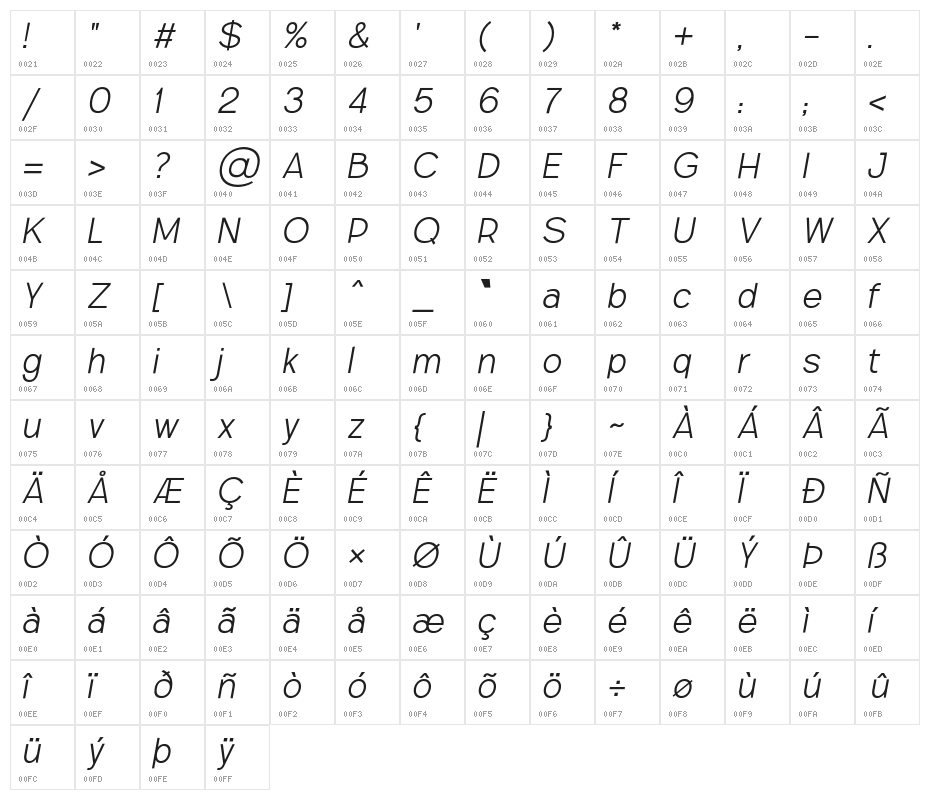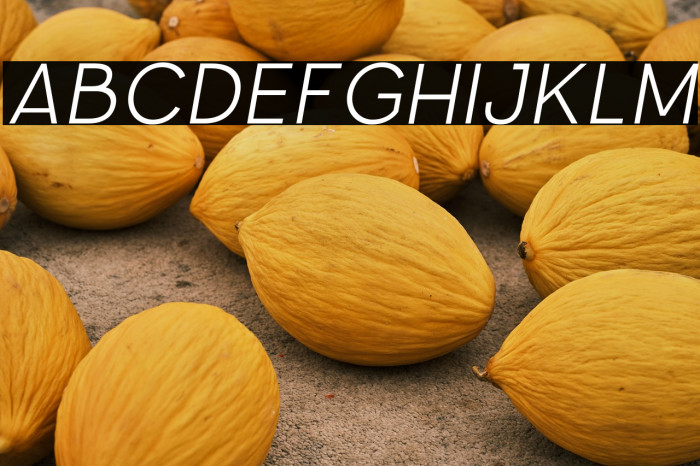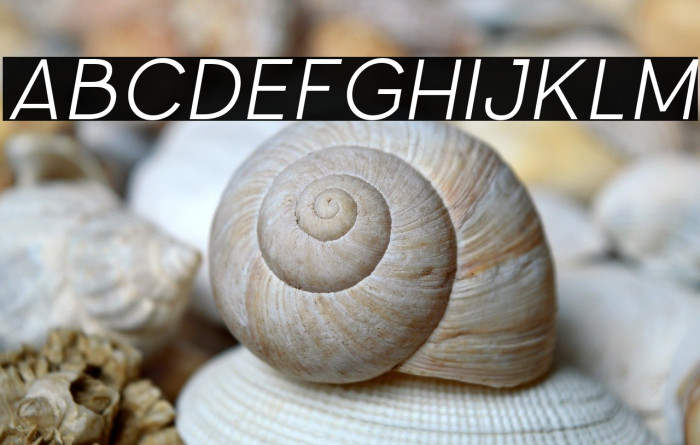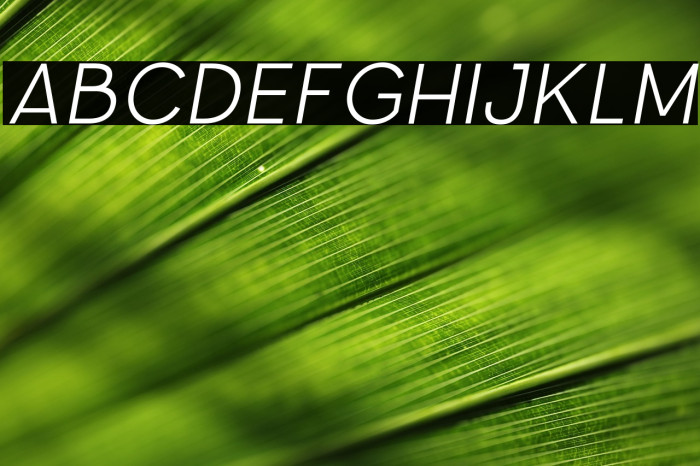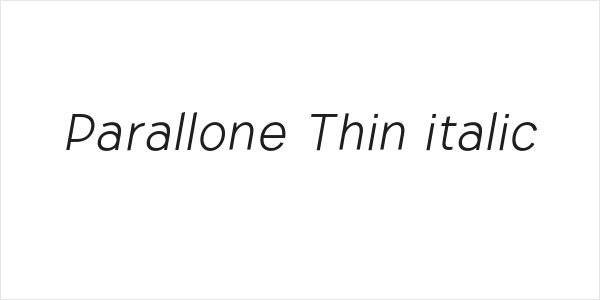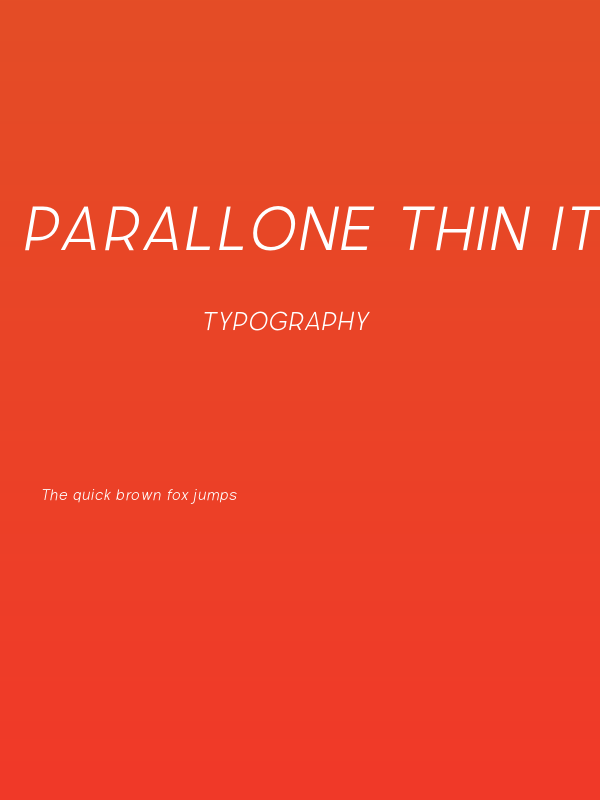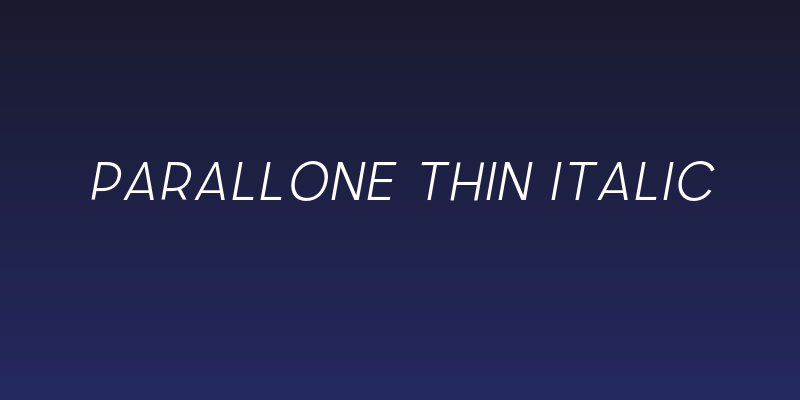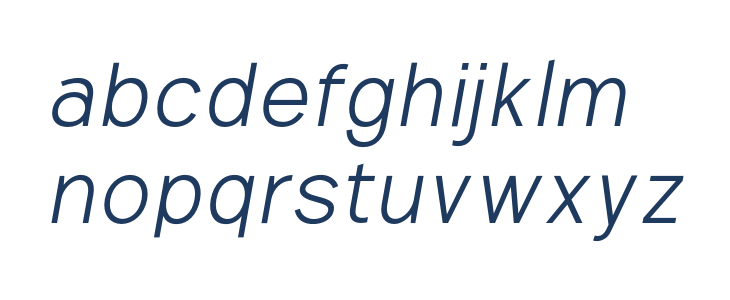
Parallone Thin italic Font
Parallone Thin italic Description
This font features a sleek and modern design with a thin, elegant structure. The characters are slightly italicized, giving them a dynamic and forward-leaning appearance. The strokes are consistent and smooth, with a low contrast between thick and thin lines, contributing to a clean and minimalist aesthetic. The uppercase and lowercase letters maintain a uniform height, enhancing readability. The numerals are clear and distinct, matching the overall style of the alphabet. Special characters are well-integrated, maintaining the font's cohesive look. This typeface is versatile, suitable for various digital and print applications.
| Proposed Projects | Ideal for modern branding, digital interfaces, minimalist posters, and elegant invitations. |